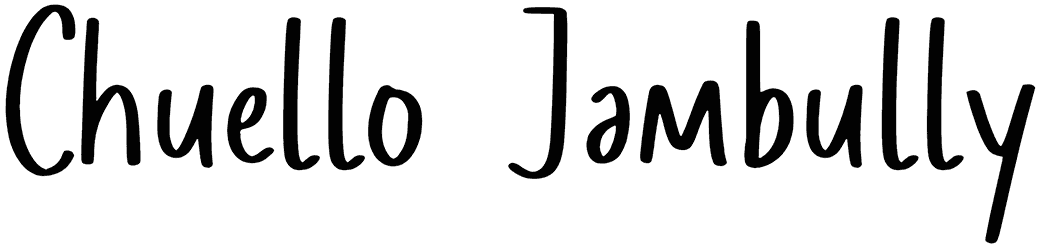
Chuello Jambully Font
Whether you are working on your next daily Instagram post or an invitation for a friendly gathering, this summer font can be a nice option. The letters of this script font have a modern and casual form that is going to be interesting for many viewers. Chuello Jambully font has A-Z characters, and you can count on it for any layout.